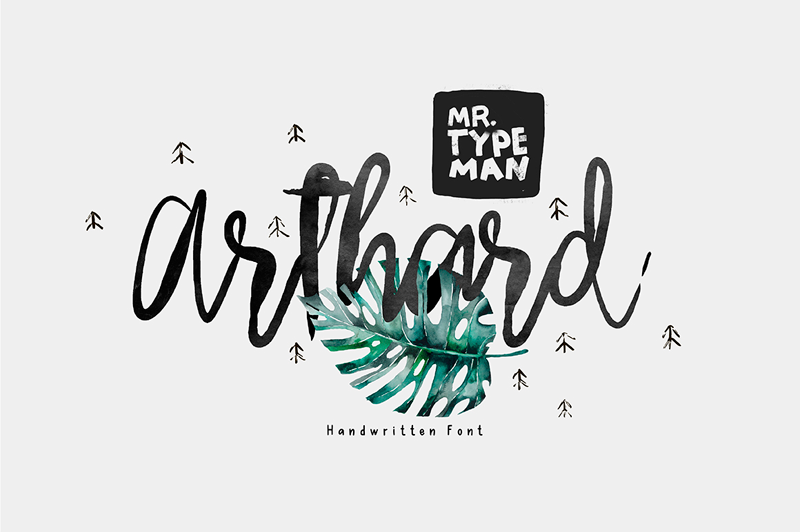
Preview and download Arthard Font. Created by Mr. Typeman in Script Handwritten styles with Demo license.
This is the demo version of the font which was made for you to try out it in your projects. This means you can NOT use it for personal or commercial aims. DOWNLOAD FULL VESION FOR PERSONAL AND COMMERCIAL USE: https://crmrkt.com/8Wgxx Take a look on those grunge characters which will add charisma to any of your designs! Full version of Arthard comes with upper and lowercase characters, basic punctuation, numbers and special glyphs, so the font can be used with most of the European languages. ----------------------------------------------------- Contact me if you have any questions: mr.typeman@gmail.com ----------------------------------------------------- Enjoy! |